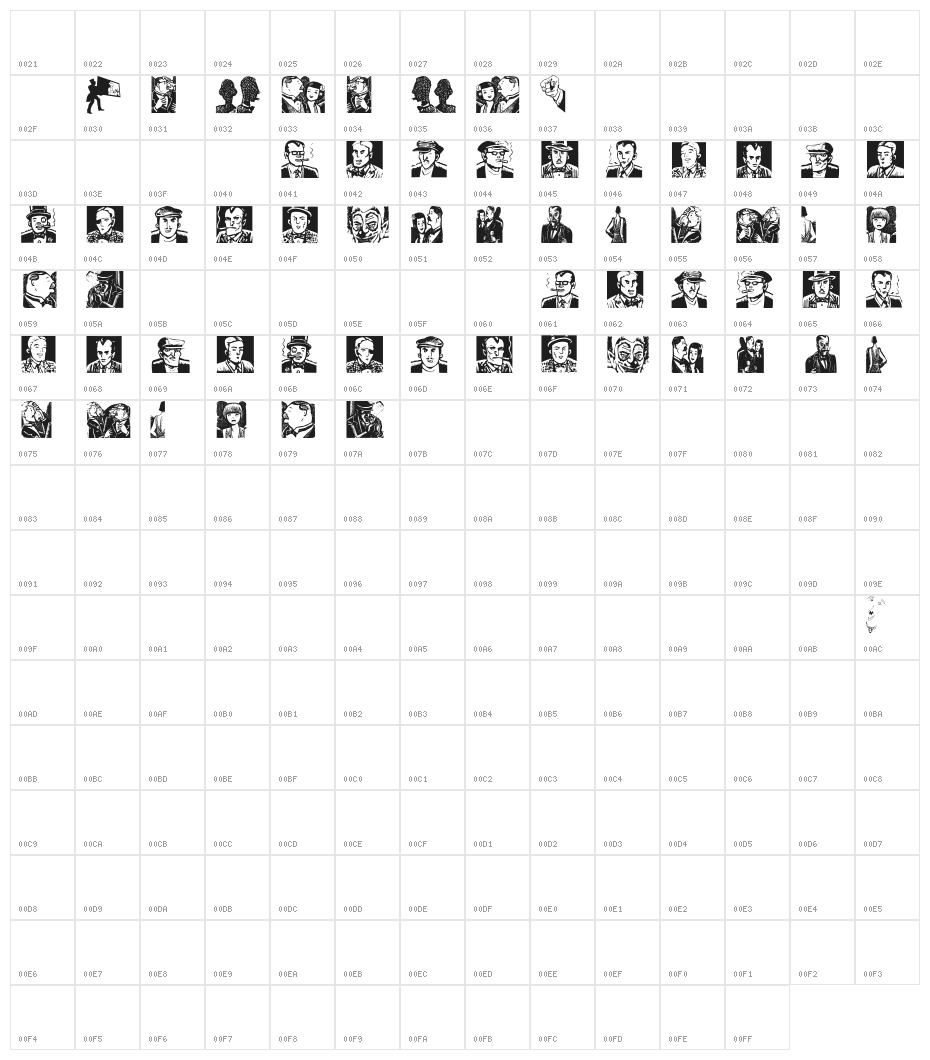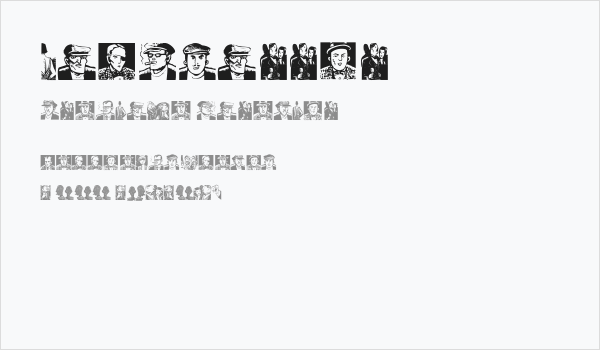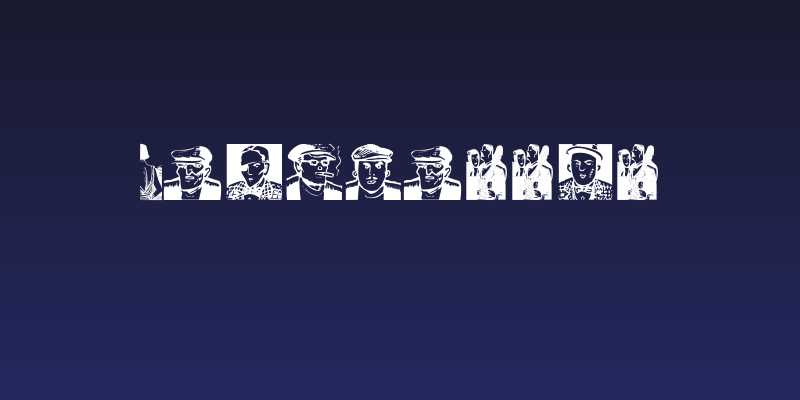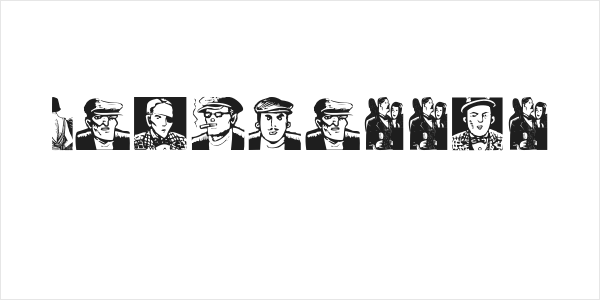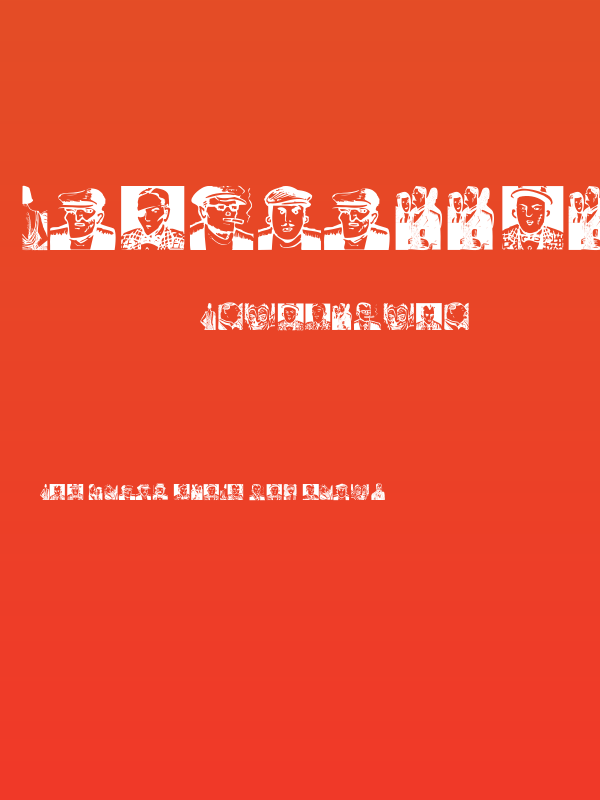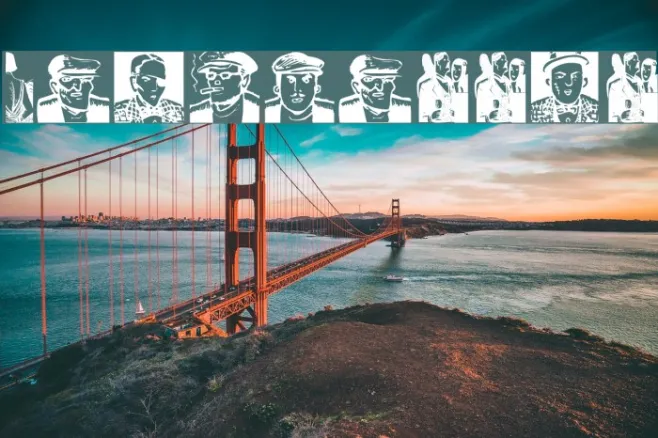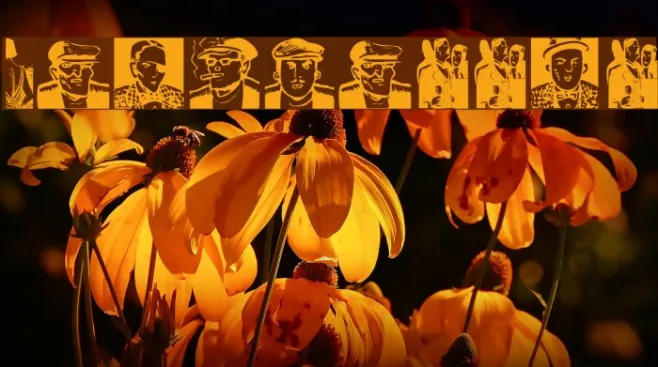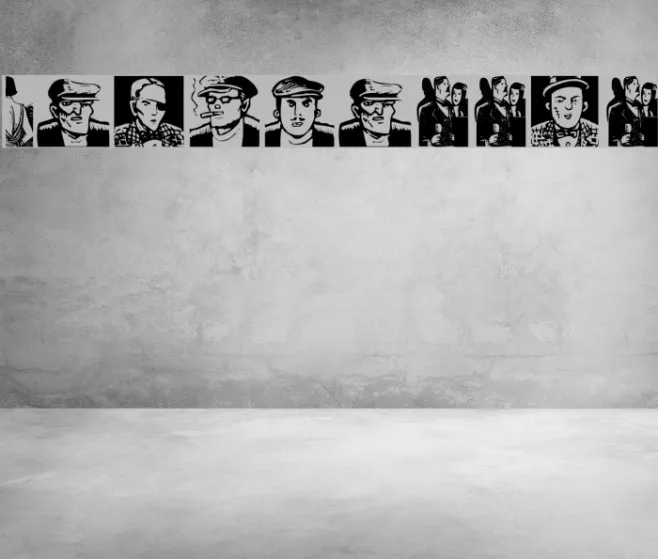
WildMirror Font
WildMirror Description
A highly decorative, illustrative font where each character is represented by a detailed black-and-white drawing of a person or scene, evoking a vintage comic or noir graphic novel style. The glyphs are square and filled with intricate linework, making each letter or symbol a unique artwork.
| Overall Style | Vintage, Decorative, Artistic |
| Use Case | Headlines, Logos, Posters, Artistic projects |
| Proposed Projects | Posters, graphic novels, event invitations, album covers, theatrical promotions, and any creative project needing a bold, artistic statement. |